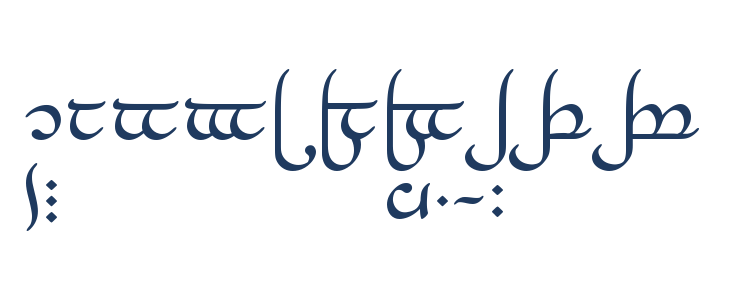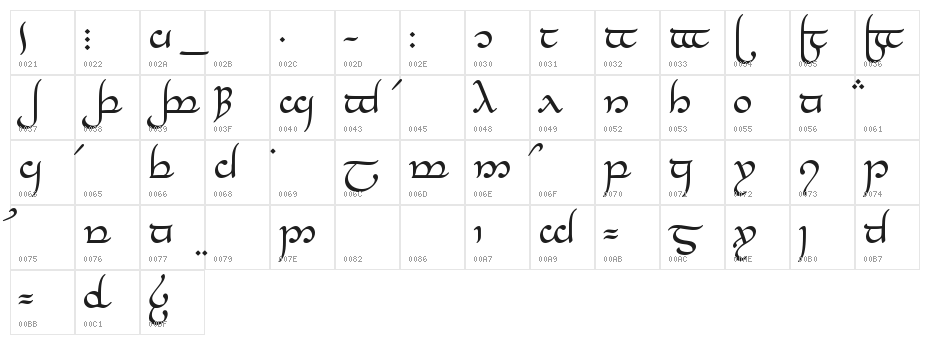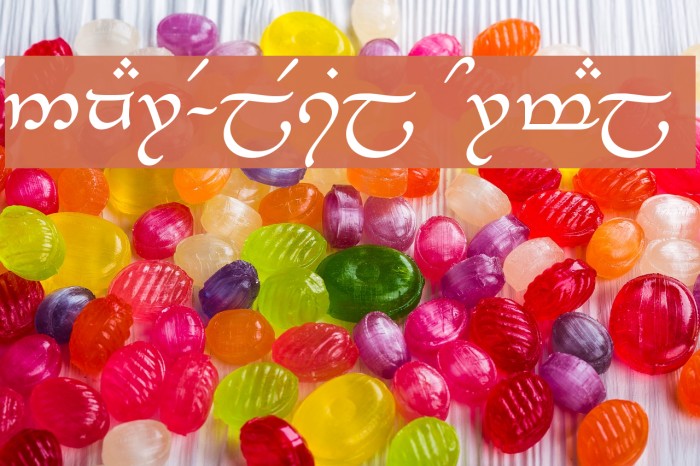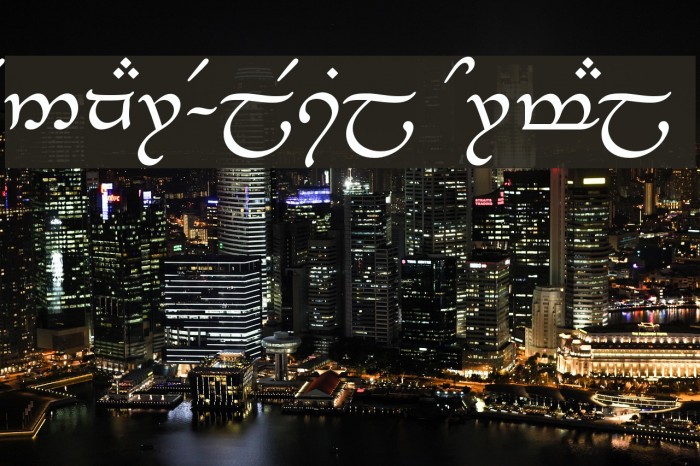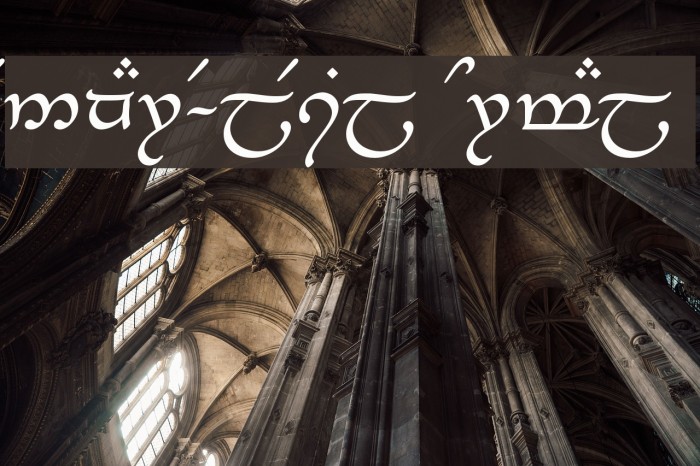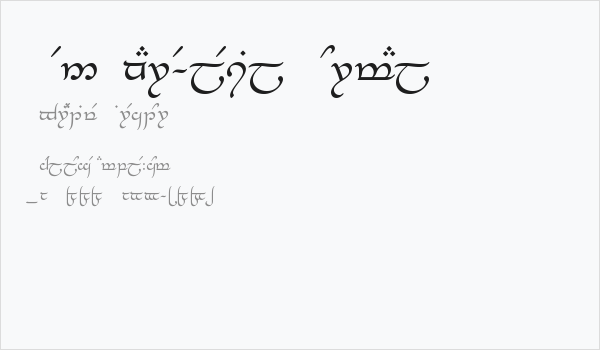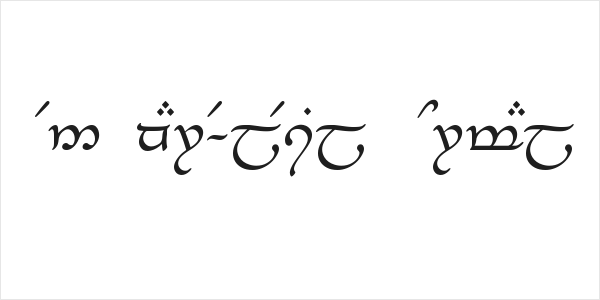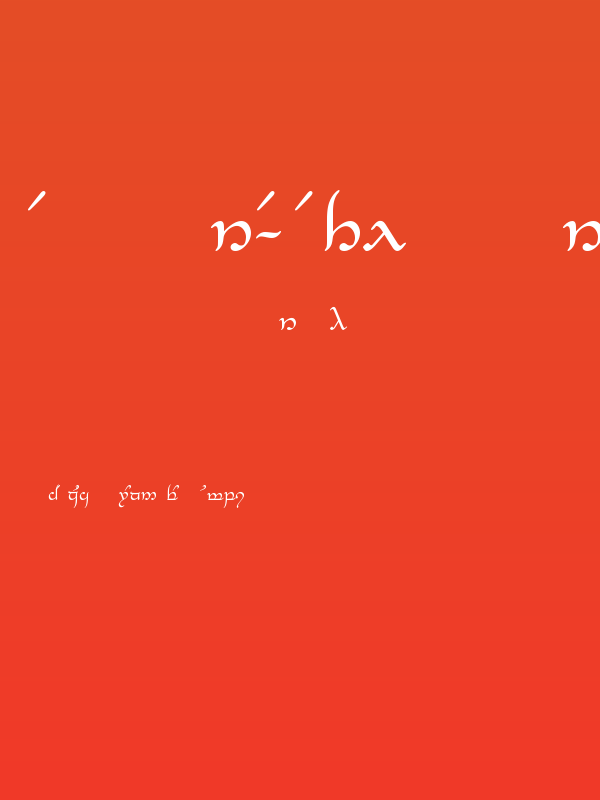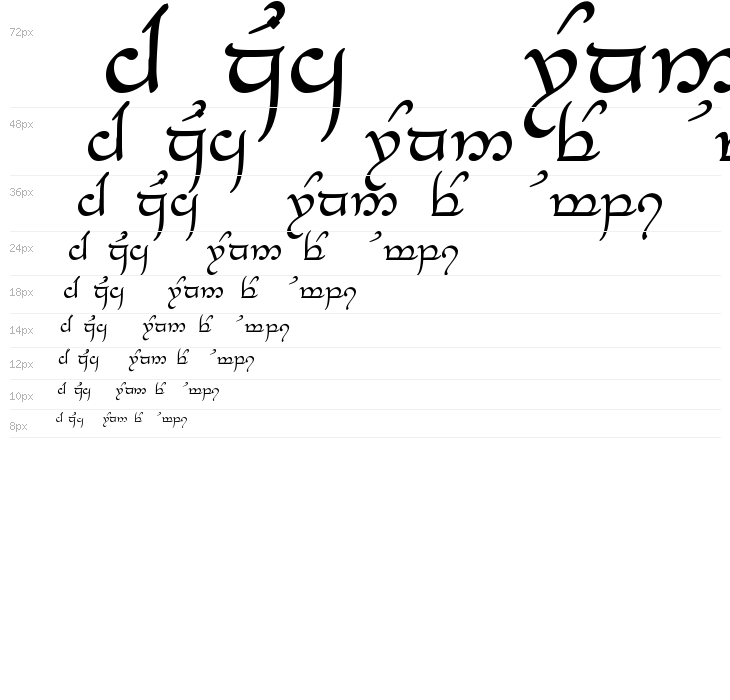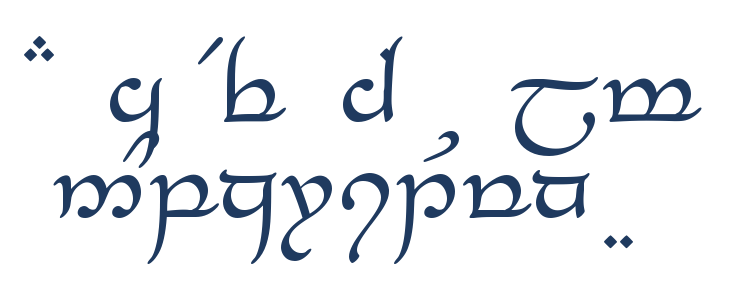
Tengwar-Elesil Normal Font
Tengwar-Elesil Normal Description
This font is an elegant and intricate script inspired by fictional languages, featuring flowing lines and unique character shapes. The characters are highly stylized, with a blend of curves and sharp angles that give it a mystical and ancient appearance. The script is decorative, with each letter crafted to resemble a piece of art. The font is not designed for readability in traditional text but rather for artistic and thematic purposes, making it ideal for fantasy settings or projects that require an exotic and otherworldly aesthetic.
| Use Case | Logos, Titles, Decorative text |
| Proposed Projects | Ideal for fantasy-themed projects, book covers, movie posters, and game designs that require an exotic and otherworldly aesthetic. |